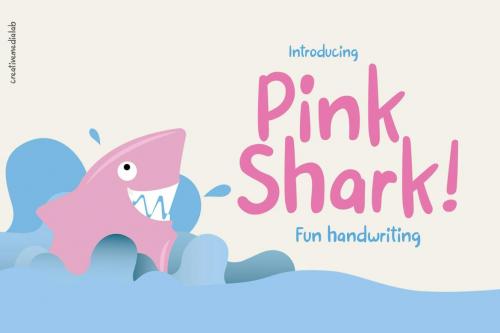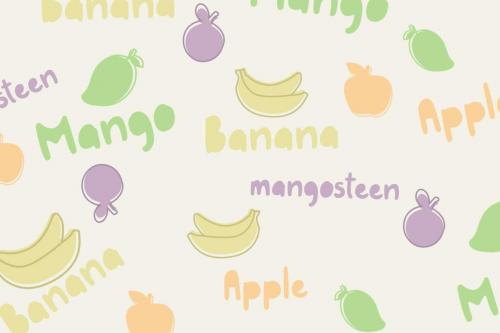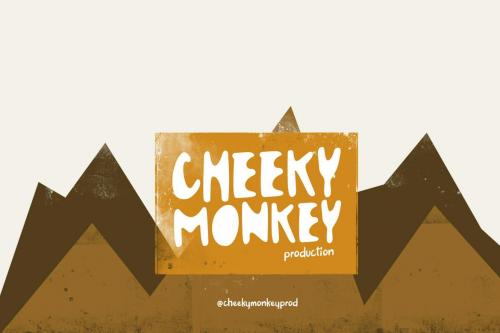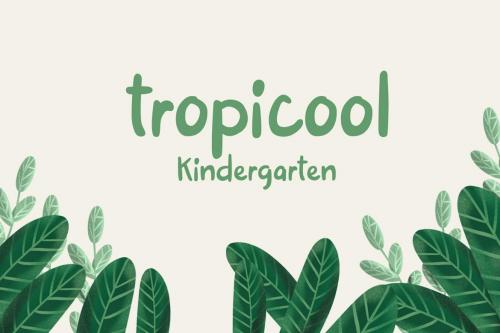
粉色鲨鱼 - 有趣的手写字体
Pink Shark - Fun handwritten Font
Introducing Pink Shark Handwritten font unique, bold and fun brush fonts consist of regular and wrap style that will make your design unique and fun. Perfect for DIY projects, labels, quotes, posters, wall art, branding, packaging, greeting cards, websites, photography overlays, signs, window art, scrap booking, tags and so much more! check out our other items for more unique and beautiful font!
Introducing Pink Shark Handwritten font
unique, bold and fun brush fonts consist of regular and wrap style that will make your design unique and fun.
Perfect for DIY projects, labels, quotes, posters, wall art, branding, packaging, greeting cards, websites, photography overlays, signs, window art, scrap booking, tags and so much more!